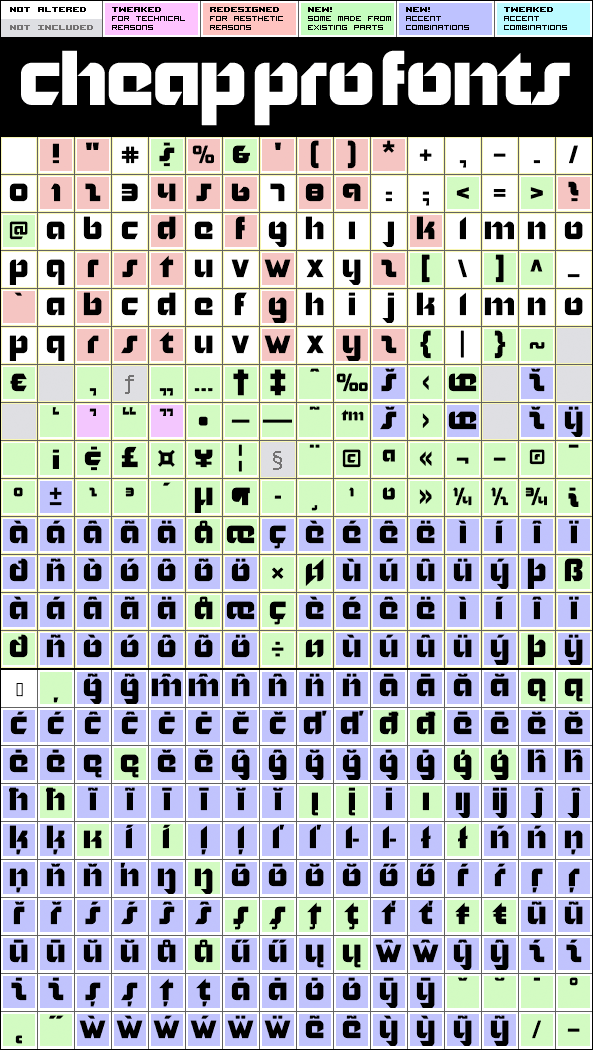
Nordic Pro
Nordic Pro by Levente Halmos
375 glyphs!
185 class kernpairs
= 2690 kerning pairs
(none in original)
A very solid, square and sturdy font, but with some special and quirky details. It is perfect for logos and trademarks - and now supporting many more languages. :)
Nordic Pro is a professionally reworked font that contains an extended character set for setting text in 65 languages requiring more than the basic A-Z!